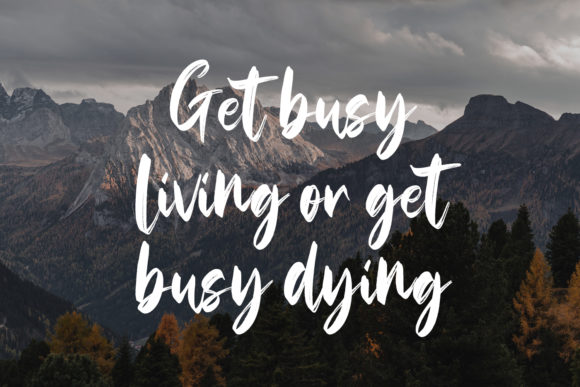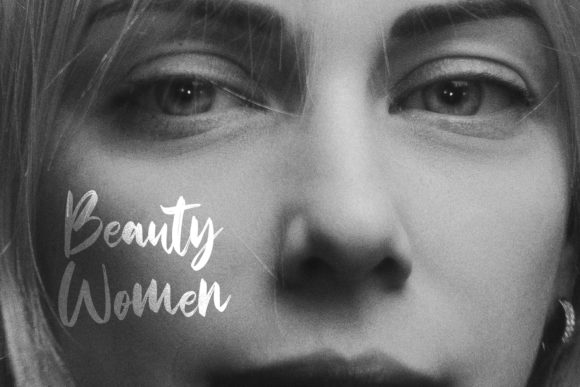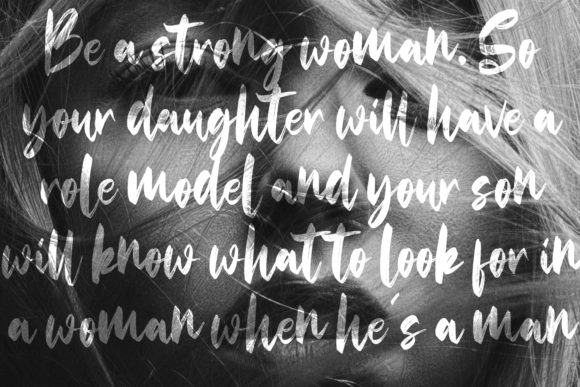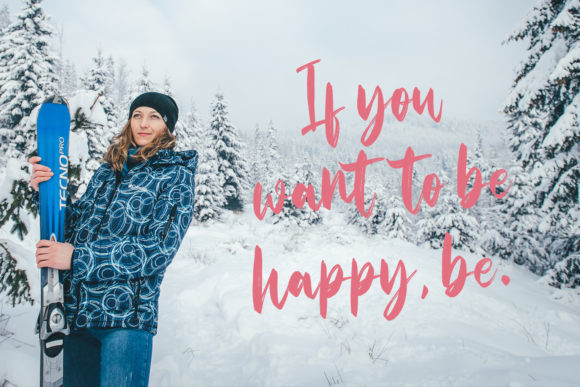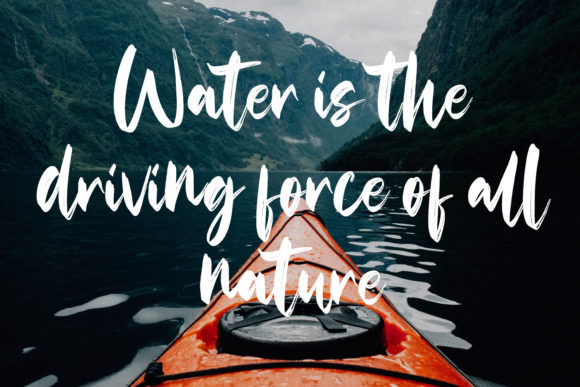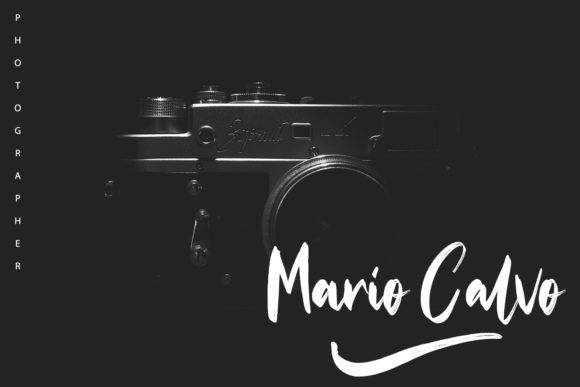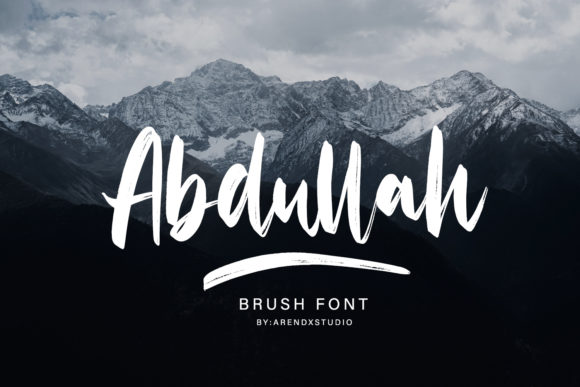
Discover the Charm of Abdullah Font: A Unique Script Font with a Personal Touch
In the world of typography, fonts play a crucial role in conveying messages, expressing emotions, and creating visual identities. Among the numerous fonts available, Abdullah Font stands out for its distinct handwriting style, which gives it an organic and natural vibe. If you’re a designer, crafter, or simply a font enthusiast, you’ll fall in love with the unique style of Abdullah Font.
What Makes Abdullah Font Special?
Abdullah Font boasts a one-of-a-kind script style that sets it apart from other fonts. Its handwriting-like appearance gives it a personal touch, making it perfect for projects that require a human and approachable feel. The font’s unique characteristics include:
- Handwritten style: Abdullah Font features a genuine handwriting style that exudes warmth and personality.
- Organic vibe: The font’s natural and effortless look makes it ideal for designs that require a friendly and approachable tone.
- Distinctive lettering: Each letter in Abdullah Font has a unique shape and character, adding to its charm and character.
Abdullah Font Features
Abdullah Font comes with a range of features that make it an excellent choice for designers and crafters. Some of its notable features include:
- Multi-language support: Abdullah Font supports multiple languages, making it a versatile choice for global projects.
- Variable font styles: The font comes in various styles, allowing you to experiment with different looks and feels.
- Easy to read: Despite its handwritten style, Abdullah Font is surprisingly easy to read, making it suitable for body text and headings.
Use Cases for Abdullah Font
Abdullah Font’s unique style makes it suitable for a wide range of design projects, including:
- Logos and branding: The font’s distinctive style makes it perfect for creating memorable logos and brand identities.
- Wedding and event designs: Abdullah Font’s romantic and whimsical feel makes it ideal for wedding invitations, stationery, and event branding.
- Packaging and product design: The font’s organic vibe makes it suitable for packaging and product design projects that require a natural and earthy feel.
Tips for Using Abdullah Font Effectively
To get the most out of Abdullah Font, follow these tips:
- Pair it with contrasting fonts: Combine Abdullah Font with a clean, sans-serif font to create visual interest and contrast.
- Use it for headings and titles: Abdullah Font’s unique style makes it perfect for headings and titles, adding a touch of personality to your designs.
- Experiment with colors: The font’s organic vibe makes it suitable for a range of colors, from earthy tones to bold and bright hues.
Abdullah Font is a unique script font that offers a refreshing alternative to traditional fonts. Its distinct handwriting style, organic vibe, and range of features make it an excellent choice for designers and crafters. Whether you’re looking to create a memorable logo, a beautiful wedding invitation, or a stunning packaging design, Abdullah Font is sure to impress. So, fall in love with its unique style and take your designs to the next level!